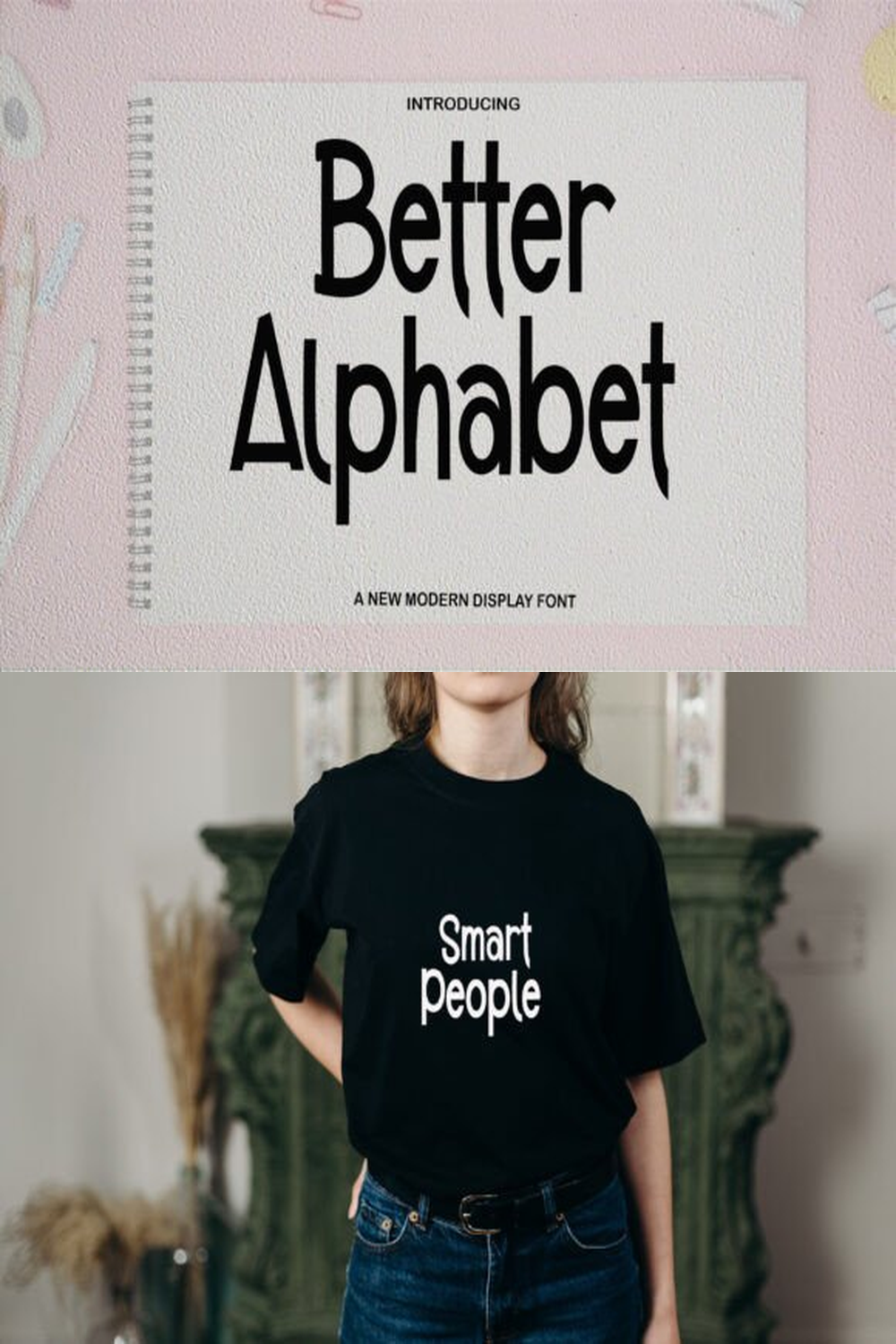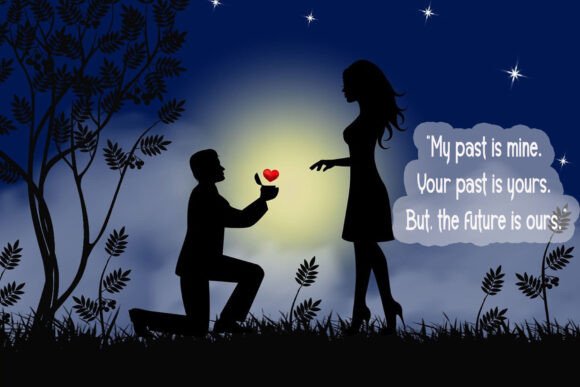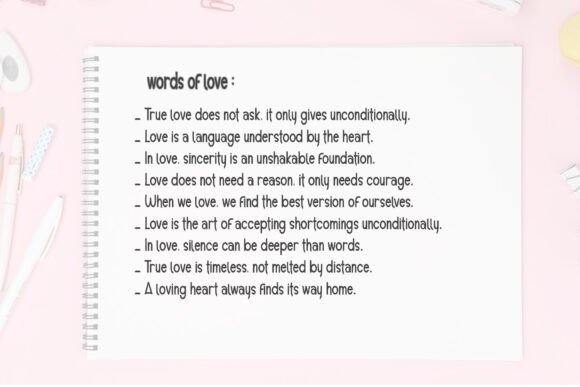
About the Better Alphabet Font
Meet Better Alphabet Font, a stunning font that brings a touch of elegance and professionalism to any design. Better Alphabet is a trendy handwritten font with a contemporary atmosphere and impeccable form, inspired by timeless classic calligraphy. It will add elegance and class to any of your design projects. This font can be used to write various kinds of products according to the aspect of each need
Better Alphabet Font Usage Examples